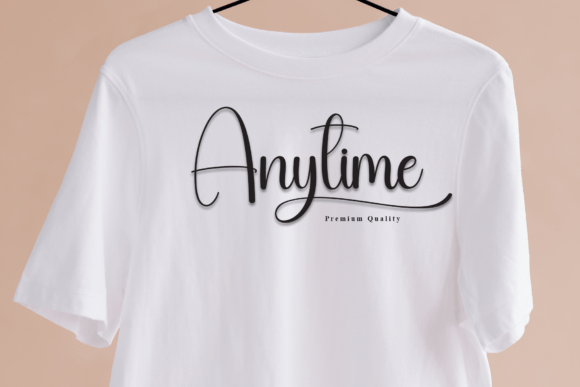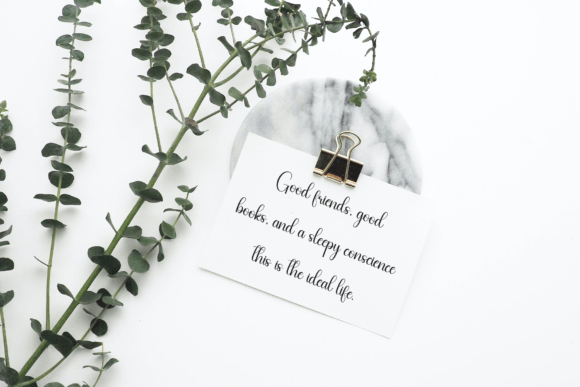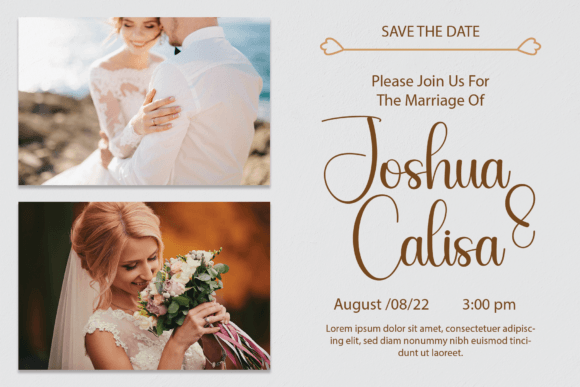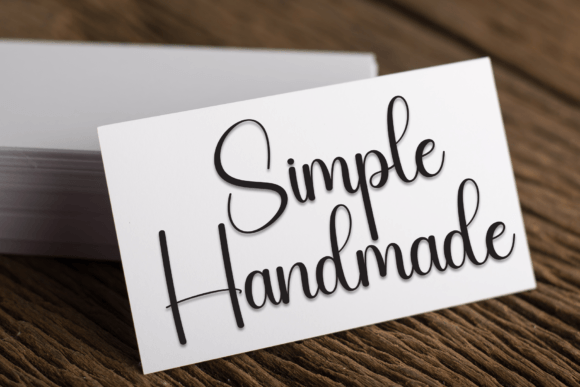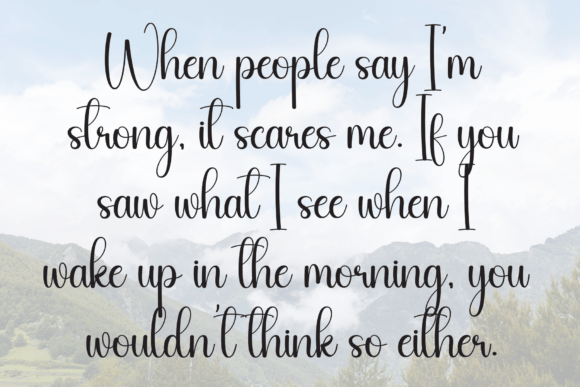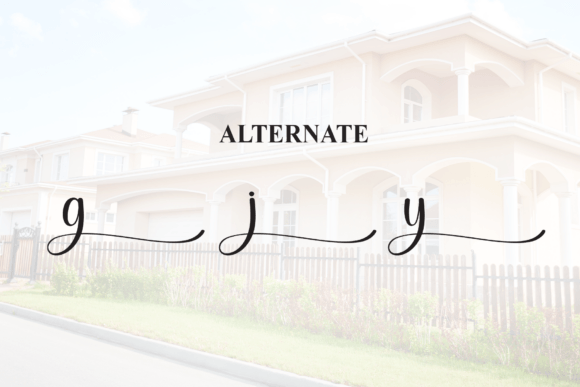
Bighome Font: Elevate Your Designs with Elegance and Sophistication
In the world of typography, a font can make or break a design. For those seeking a touch of elegance and sophistication, the Bighome Font is an exceptional choice. This stylish and incredibly elegant script font has been gaining popularity among designers and crafters for its versatility and stunning appearance. In this article, we’ll dive into the world of Bighome Font, exploring its features, uses, and benefits.
What is Bighome Font?
Bighome is a beautifully crafted script font that exudes luxury and refinement. Its flowing lines, intricate details, and classic feel make it perfect for designs that require a handwritten touch. Whether you’re working on wedding invitations, thank you cards, quotes, greeting cards, logos, or business cards, Bighome Font is sure to impress.
Key Features of Bighome Font
- Elegant and Refined: Bighome Font boasts an elegant and refined design, making it suitable for high-end projects and sophisticated branding.
- Script Style: This beautiful script font features flowing lines and intricate details, giving it a unique and eye-catching appearance.
- Versatile: Bighome Font can be used for a wide range of design projects, from wedding stationery to business branding.
- Handwritten Touch: The font’s handwritten feel adds a personal and emotional touch to any design, making it perfect for projects that require a sense of warmth and connection.
Uses of Bighome Font
Bighome Font is an incredibly versatile font that can be used for various design projects, including:
- Wedding Stationery: Create stunning wedding invitations, thank you cards, and save-the-date cards with Bighome Font.
- Greeting Cards: Add a touch of elegance to birthday cards, Christmas cards, and other holiday greetings.
- Logos and Branding: Use Bighome Font to create sophisticated logos and branding materials for high-end businesses.
- Business Cards: Elevate your business cards with Bighome Font, making a lasting impression on clients and partners.
- Quotes and Typography: Use Bighome Font to create beautiful typographic quotes, posters, and prints.
Benefits of Using Bighome Font
By incorporating Bighome Font into your designs, you’ll enjoy several benefits, including:
- Unique and Eye-Catching Designs: Bighome Font helps you create designs that stand out from the crowd and leave a lasting impression.
- Time-Saving: With Bighome Font, you can quickly and easily create professional-looking designs without spending hours on custom typography.
- Consistency: Using a single, high-quality font like Bighome ensures consistency across your designs, reinforcing your brand’s identity and aesthetic.
Tips for Using Bighome Font
To get the most out of Bighome Font, keep the following tips in mind:
- Pair with Complementary Fonts: Combine Bighome Font with complementary fonts to create visual interest and hierarchy in your designs.
- Experiment with Colors: Try pairing Bighome Font with different colors to create unique and eye-catching effects.
- Pay Attention to Spacing: Adjust the spacing and kerning to ensure that your text is easy to read and visually appealing.
Bighome Font is a stunning script font that can elevate your designs with elegance and sophistication. Its versatility, refined design, and handwritten touch make it perfect for a wide range of projects, from wedding stationery to business branding. By incorporating Bighome Font into your design workflow, you’ll be able to create unique, eye-catching, and professional-looking designs that leave a lasting impression.